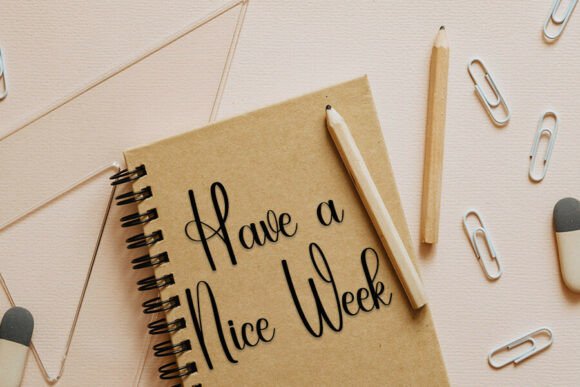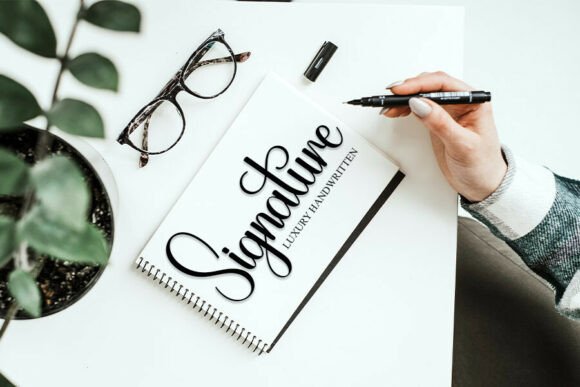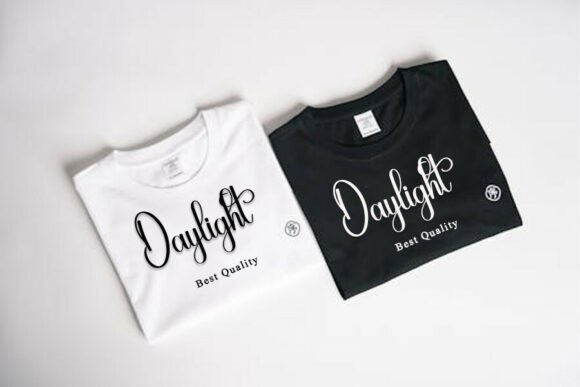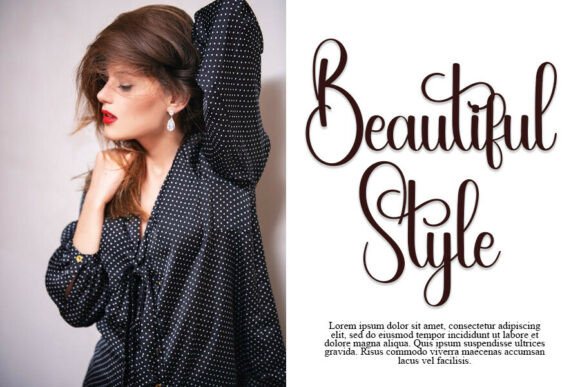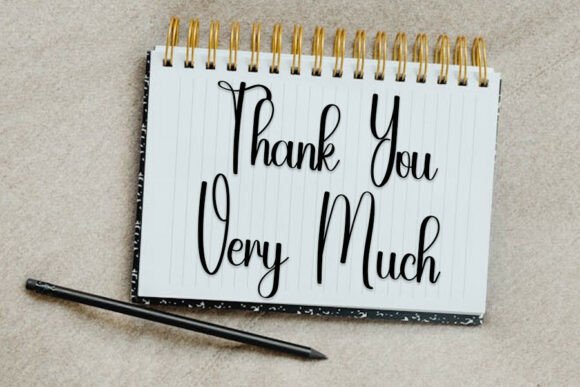
Discover the Charm of Beautiful Village Font: A Casual and Creative Typeface
Are you looking for a font that can add a personal touch to your designs, invitations, and social media graphics? Look no further than the Beautiful Village font, a charming and creative typeface that exudes warmth and friendliness. With its round, playful strokes, this font is perfect for anyone who wants to create a relaxed and approachable feel in their designs.
The Characteristics of Beautiful Village Font
Beautiful Village font is a casual and creative typeface that is designed to make your designs stand out. Its key characteristics include:
- Round and playful strokes: The font features round and playful strokes that create a relaxed and approachable feel.
- Hand-drawn aesthetic: The font has a charming, hand-drawn aesthetic that adds a fun and unique touch to any design.
Perfect for Personal Projects and Designs
Beautiful Village font is perfect for personal projects, invitations, and social media graphics. Whether you’re a designer, crafter, or simply someone who loves to create, this font is sure to become a favorite in your collection. Here are some ideas for using Beautiful Village font:
- Personal invitations: Use Beautiful Village font to create custom invitations for special occasions such as weddings, birthdays, and baby showers.
- Social media graphics: Add a personal touch to your social media graphics with Beautiful Village font.
- Crafting projects: Use Beautiful Village font to add a creative touch to your crafting projects, such as scrapbooking, card making, and DIY signs.
Why Designers and Crafters Love Beautiful Village Font
Designers and crafters love Beautiful Village font for its unique and creative aesthetic. Here are some reasons why:
- Unique and creative: Beautiful Village font has a unique and creative aesthetic that sets it apart from other fonts.
- Easy to read: The font is easy to read, making it perfect for designs that require a clear and concise message.
- Versatile: Beautiful Village font is versatile and can be used in a variety of designs, from personal projects to commercial designs.
Tips for Using Beautiful Village Font
Here are some tips for using Beautiful Village font:
- Pair with other fonts: Pair Beautiful Village font with other fonts to create a unique and creative contrast.
- Use in combination with images: Use Beautiful Village font in combination with images to add a personal touch to your designs.
Beautiful Village font is a charming and creative typeface that is perfect for designers, crafters, and anyone who loves to create. With its round, playful strokes and hand-drawn aesthetic, this font is sure to add a personal touch to your designs. Whether you’re working on a personal project, invitation, or social media graphic, Beautiful Village font is a great choice. So why not give it a try and see how it can enhance your designs?